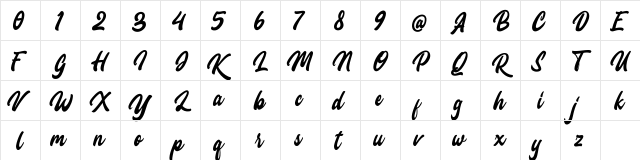
Yocellina Regular
Design Context for Yocellina Typeface
Yocellina is a composed and adaptable typeface that performs quietly and consistently across a wide range of design contexts.